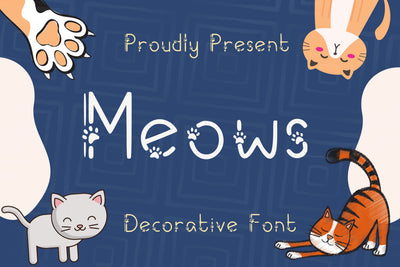
Meows Font
Meows is a stylish and cute decorative font. It features paws-themed characters that will add an incredibly joyful touch to your projects. Use this amazing font for a wide range of crafty ideas, from letterheads and titles, to stationery, and elevate your projects to the highest level!